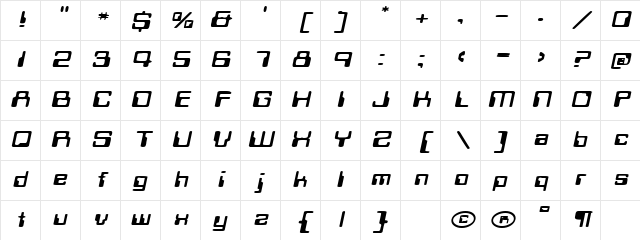
Complete TechSchoolExtended Oblique glyph index. Displaying only characters natively supported by TechSchoolExtended Oblique font.
TechSchoolExtended has a distinctly futuristic character, with geometric precision and clean angles that feel at home in technology, gaming, and sci-fi contexts. The slanted form adds forward momentum and visual energy.